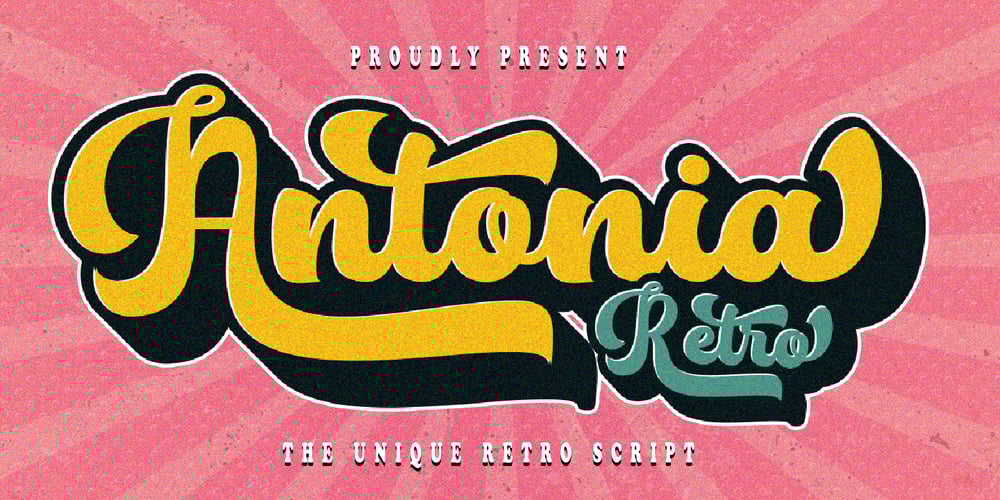
Antonia Retro Font Family was designed by Romi Rahmadi and published by Romie Creative. Antonia Retro contains 2 styles and family package options. Introducing Antonia Retro – a bold retro script font that takes you back to the ’60s. This typeface has an extruded version so you can easily create retro-effect fonts. It is suitable to be applied especially to logos, and various other formal forms such as invitations, labels, logos, magazines, books, greeting/wedding cards, packaging, fashion, make-up, stationery, novels, labels, or any advertising purposes.This font is PUA encoded, which means you can access all of the glyphs and swashes with ease!